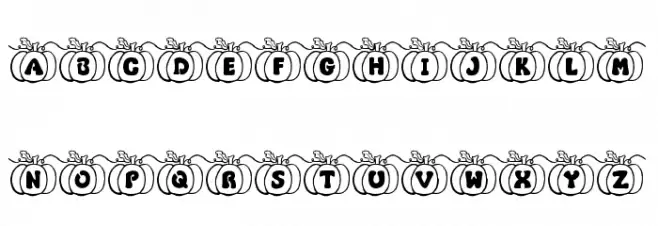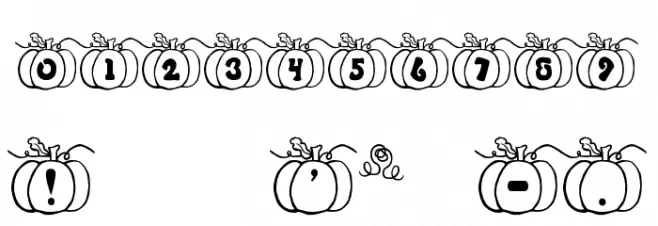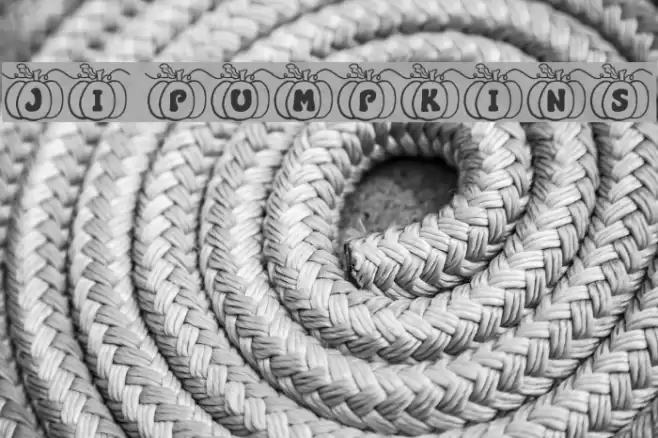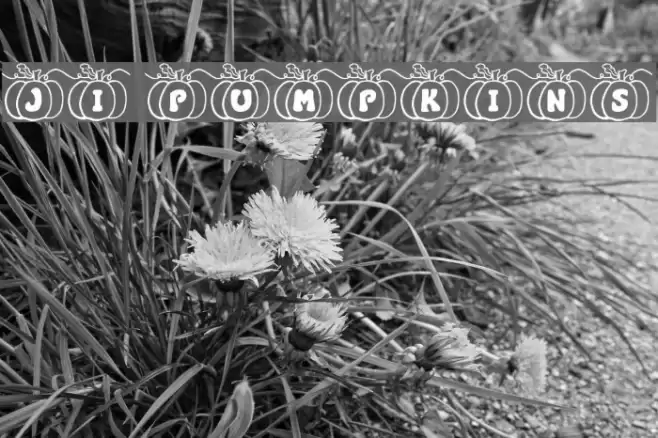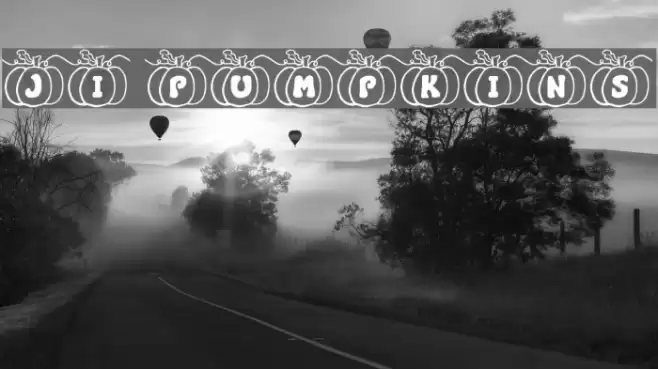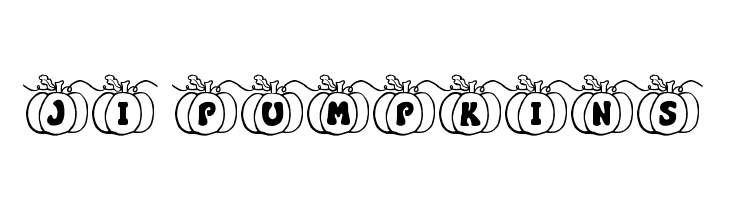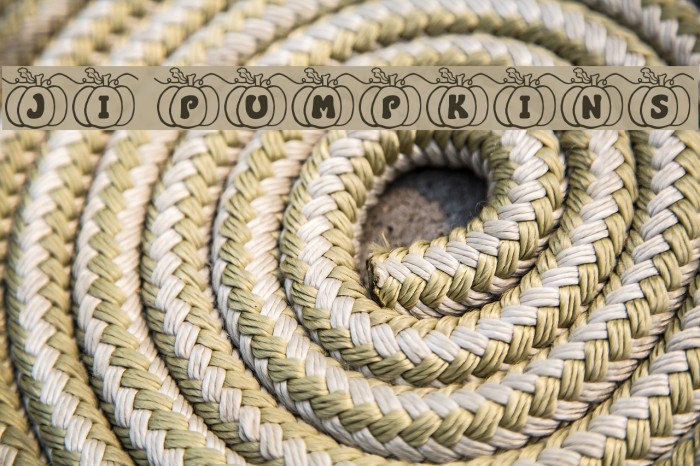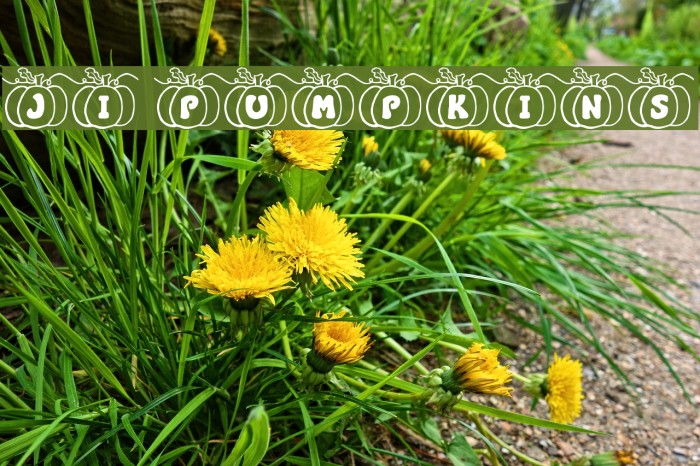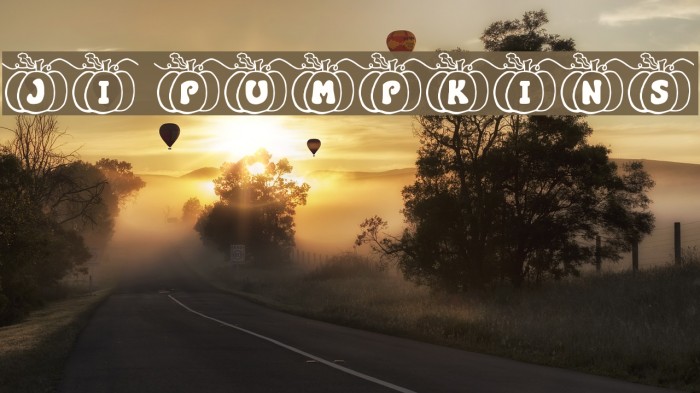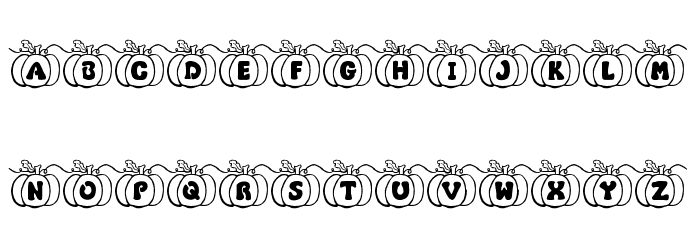
JI Pumpkins
This playful and decorative font features each character encased within a pumpkin shape, adding a whimsical and festive touch. The letters and numbers are bold and clear, making them easily readable despite the intricate design. The pumpkins have a consistent outline with a small stem and leaf detail, enhancing the autumnal theme. This font is perfect for seasonal projects, especially around Halloween or Thanksgiving, and can bring a fun and unique element to any design. The characters are evenly spaced within their pumpkin frames, ensuring uniformity across the text.
A playful, pumpkin-themed decorative font ideal for festive occasions.
- Proposed Projects: Ideal for Halloween invitations, seasonal greeting cards, festive banners, and children's party decorations.
- Overall Style: Decorative